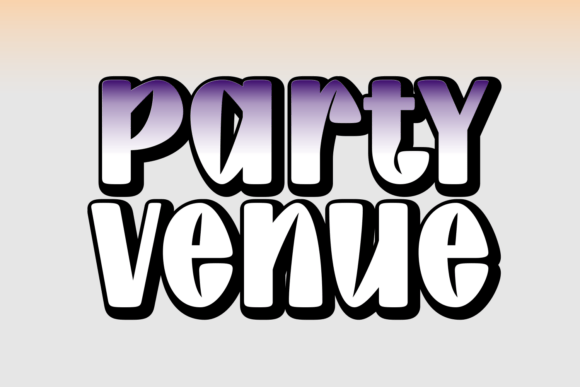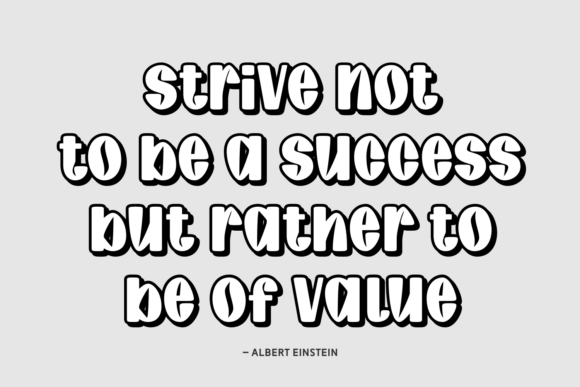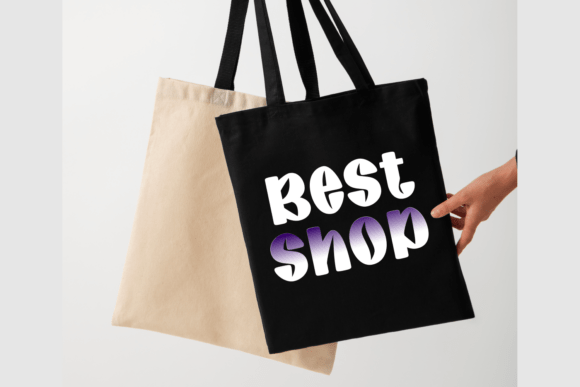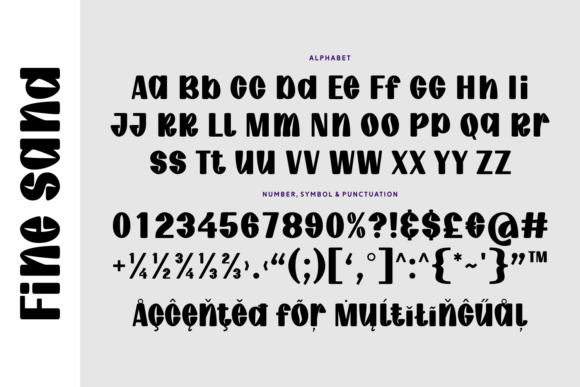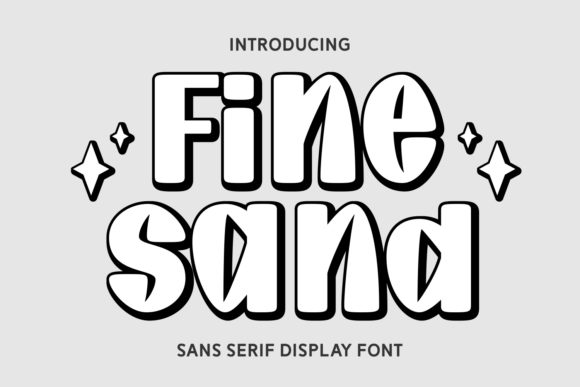
Discover the Elegance of Fine Sand Font: Elevate Your Designs with Sophistication
In the realm of typography, the Fine Sand Sans Serif font collection stands out as a masterpiece of class and versatility. Designed by the creative minds at 7ntypes, this font family offers a subtle yet distinctive range of accents that can instantly elevate your brand’s visual identity. With its smooth and plump letterforms, Fine Sand breathes life into each design, providing an unmatched level of elegance that captivates audiences.
Unleash Your Creativity with Fine Sand
Fine Sand is more than just a font; it’s an experience. Its unique feel can transform your designs, drawing instant focus and enhancing emphasis. Whether you’re working on apparel designs, book covers, or card designs, Fine Sand is the perfect choice. Its pristine aesthetic allure ensures that your messages and quotes are treasured, not merely viewed.
Apparel Designs
Fine Sand is expertly designed to breathe life into apparel designs. Its distinctive feel and smooth texture make it perfect for creating custom brand typography that stands out. With Fine Sand, you can create designs that not only look great but also tell a story. Whether you’re designing for a fashion brand or a lifestyle label, Fine Sand is the perfect choice.
Book Covers and Magazine Designs
Fine Sand is also perfectly suited for book covers and magazine designs. Its captivating uniformity ensures that your publications stand out on the shelves. The font’s subtle yet distinctive accents add a touch of sophistication to your designs, making them more engaging and visually appealing.
Card Designs
When it comes to card designs, Fine Sand is the perfect choice. Its pristine aesthetic allure ensures that your messages and quotes are treasured, not merely viewed. Whether you’re designing greeting cards, business cards, or postcards, Fine Sand adds a touch of elegance and sophistication to your designs.
Logo Design and Packaging
Fine Sand is also equally suited for capturing the essence of a logo or infusing a traditional element into packaging designs. Its smooth and plump letterforms reflect the aesthetic essence of your brand in every detail. With Fine Sand, you can create designs that are not only visually appealing but also consistent with your brand’s identity.
The Fine Sand Font Family
The Fine Sand font family, from 7ntypes, is available in regular and italic styles. This versatility ensures that you can use Fine Sand in a variety of design contexts, from body text to headings. The font’s meticulous design ensures that it engages audiences, making it perfect for a wide range of design applications.
Why Choose Fine Sand?
So, why choose Fine Sand? Here are just a few reasons:
- Unmatched elegance: Fine Sand provides an unmatched level of elegance to your designs, making them more visually appealing and sophisticated.
- Versatility: Fine Sand is available in regular and italic styles, making it perfect for a wide range of design applications.
- Captivating uniformity: Fine Sand’s subtle yet distinctive accents ensure that your designs have a captivating uniformity that engages audiences.
- Expertly designed: Fine Sand is meticulously designed to ensure that it meets the highest standards of typography.
In conclusion, Fine Sand is a font family that embodies a subtle, yet distinctive range of accents, expertly designed for crafting custom brand typography. Its smooth and plump letterforms breathe life into each design, providing an unmatched level of elegance that captivates audiences. Whether you’re a designer or a crafter, Fine Sand is the perfect choice for your next project. So, experience the elegance of Fine Sand today and elevate your designs with sophistication.